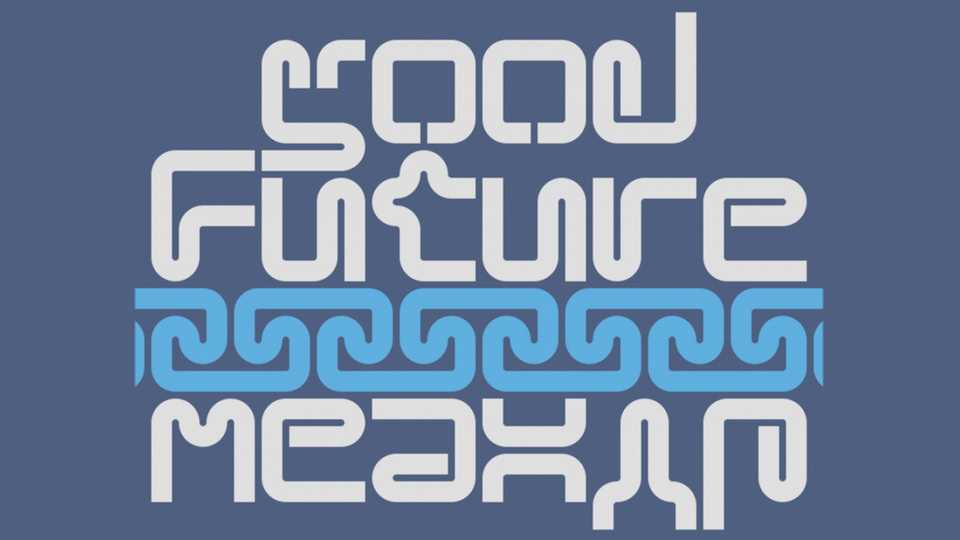
Download Good Future font, a display typeface, a recreation/digitization of Maxim Zhukov’s Meander (an experimental modular type design from 1972.
Designer: Dmitri Leontev